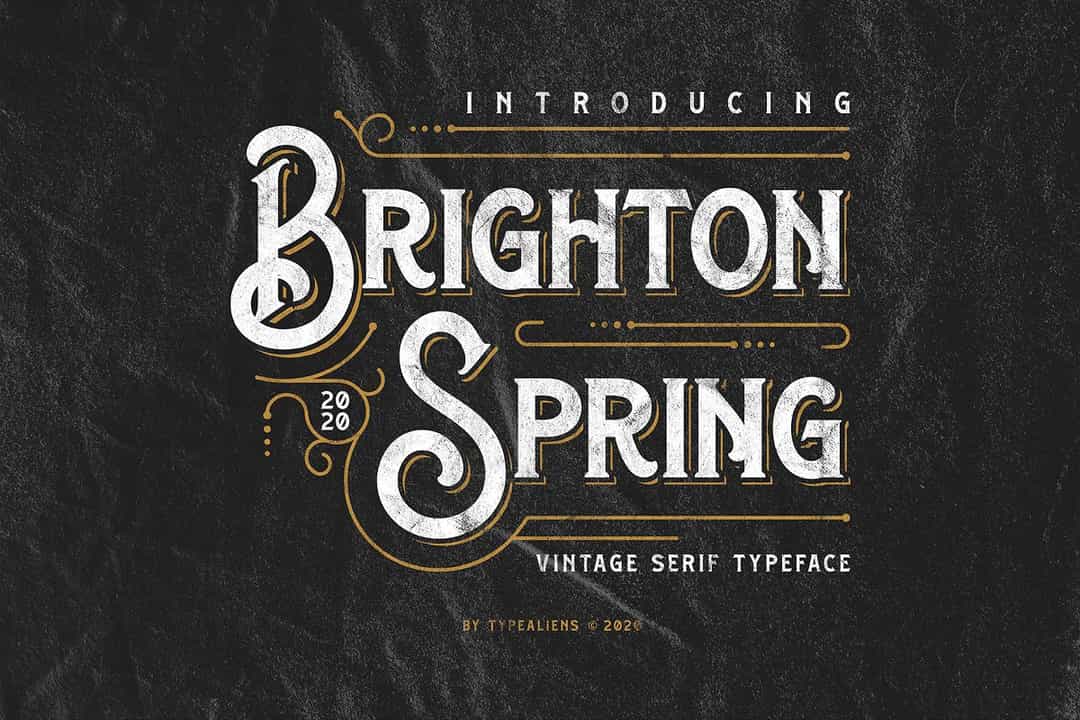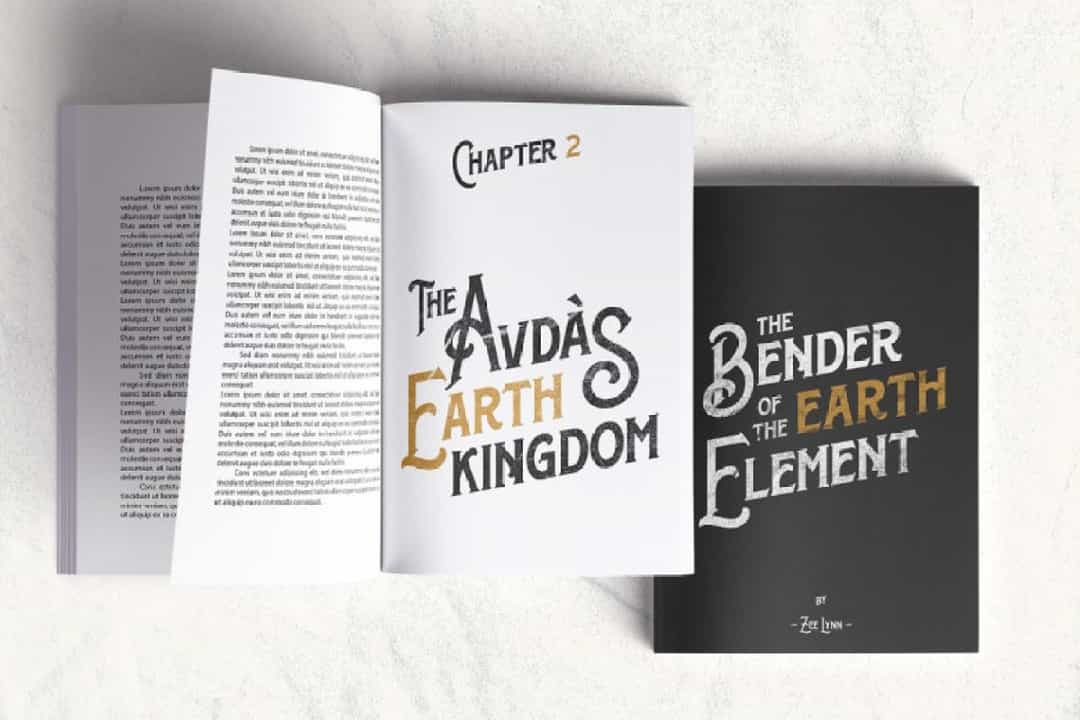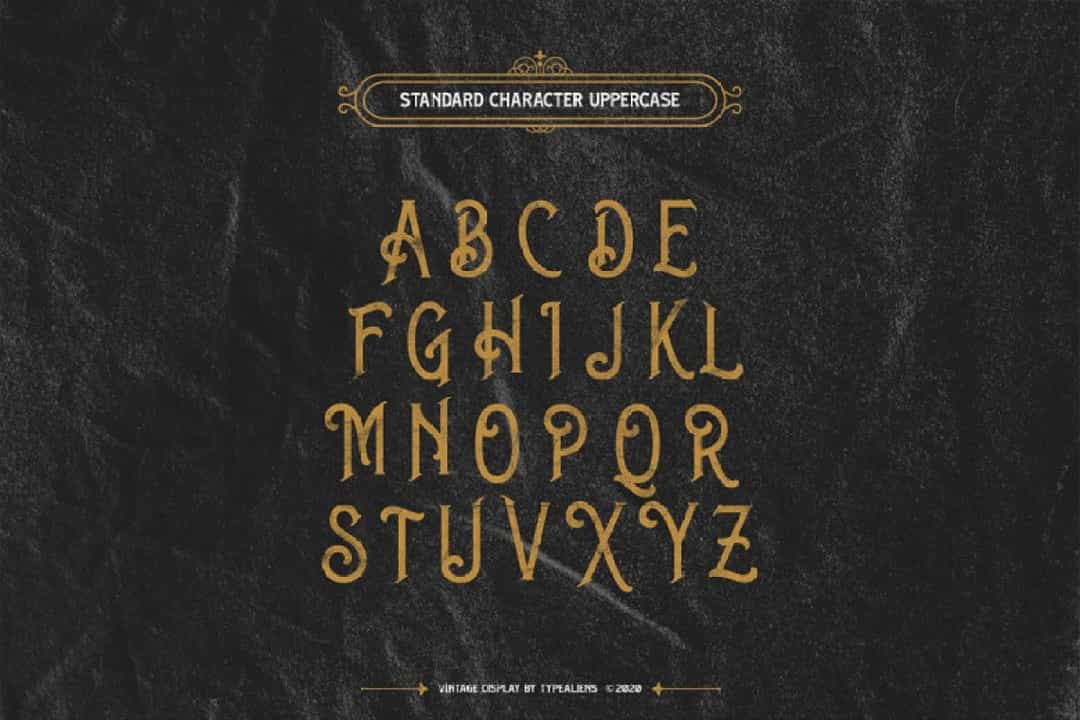
Brighton Spring is a serif font with a vintage-style Uppercase however, it can also be utilized with modern-day style. It is suitable for logo design, logotype, liquor label design, beer label design, badge design etc. To make the stunning combination you need to mix uppercase and lowercase letters, then mix in the other glyphs.